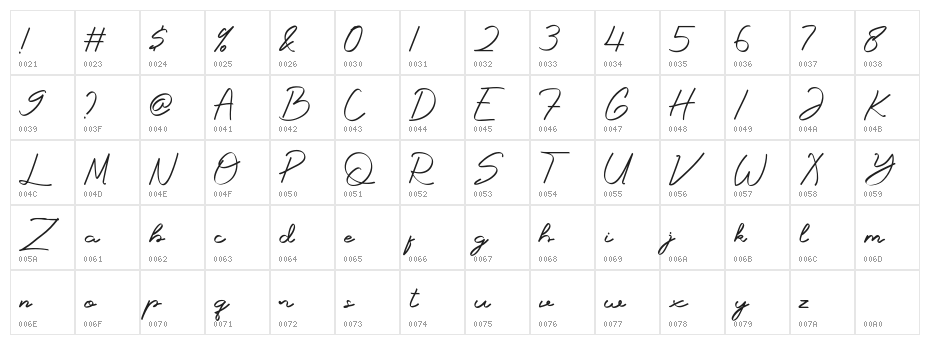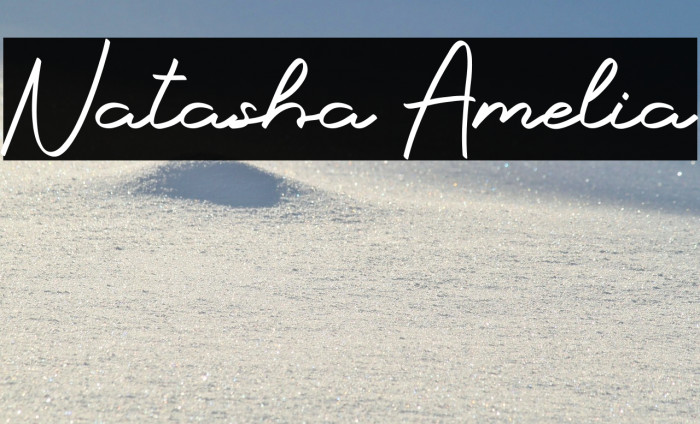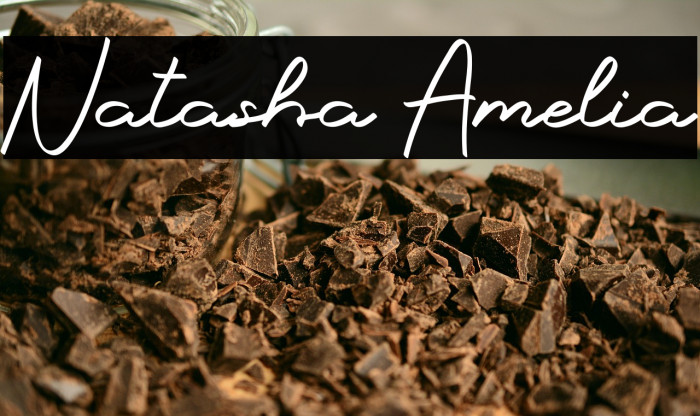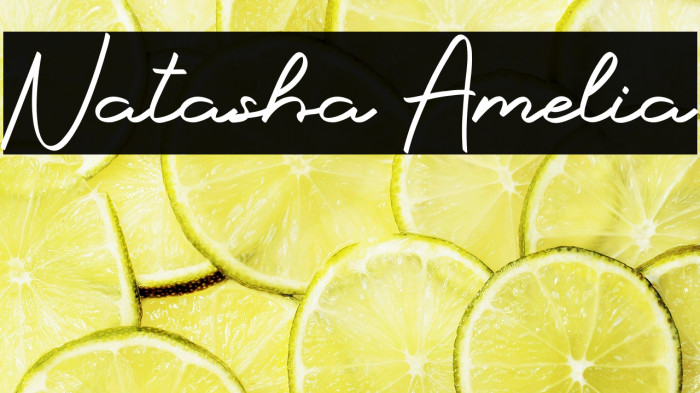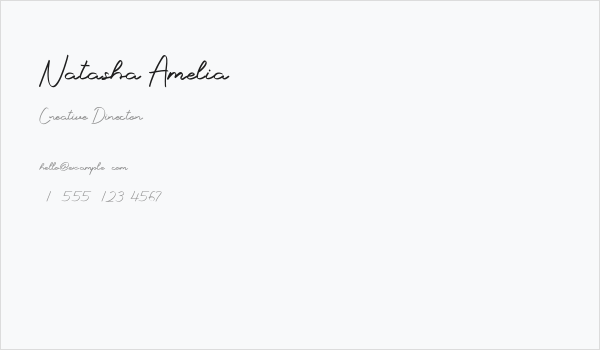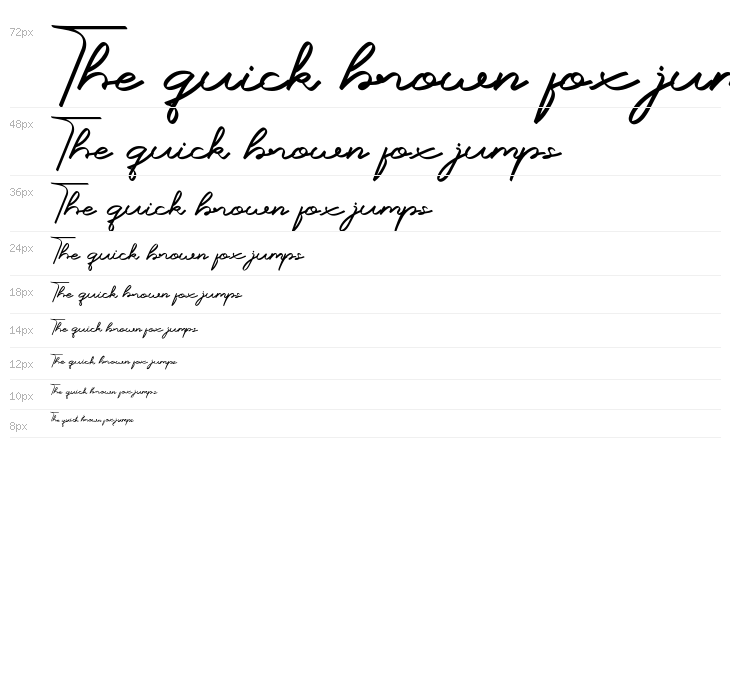
Natasha Amelia Font
Natasha Amelia Description
This font features a fluid, cursive style that mimics elegant handwriting. The uppercase letters are tall and slightly slanted, giving a sense of sophistication and grace. The lowercase letters maintain a consistent flow, with smooth curves and connections that enhance readability while preserving the handwritten aesthetic. Numbers and special characters are designed to complement the letters, maintaining the same flowing style. The overall appearance is both modern and classic, making it versatile for various design needs.
| Proposed Projects | Ideal for wedding invitations, personal branding, greeting cards, and elegant packaging designs. |